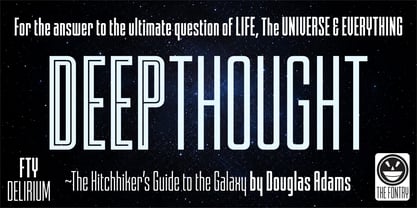
FTY DELIRIUM
by The Fontry
The FTY DELIRIUM Font Family was designed by Michael Gene Adkins and published by The Fontry. FTY DELIRIUM contains 12 styles and family package options.
FTY DELIRIUM is a narrow, gothic, gaspipe font family with a vintage look, stance and feel. Neon inline effects have been added to DELIRIUM's base weight to enhance its versatility. The neon effect can even be applied as two separate elements using the font styles menu to create a simple layering option that allows for the application of two colors. Additional secondary fonts have also been added to support the heavier weights of DELIRIUM and DELIRIUM NEON. These lightweights are the perfect complement to the main fonts, allowing for a thinner version of DELIRIUM to complete your layouts without the need to go hunting for additional fonts.
Designers: Michael Gene Adkins
Publisher: The Fontry
Foundry: The Fontry